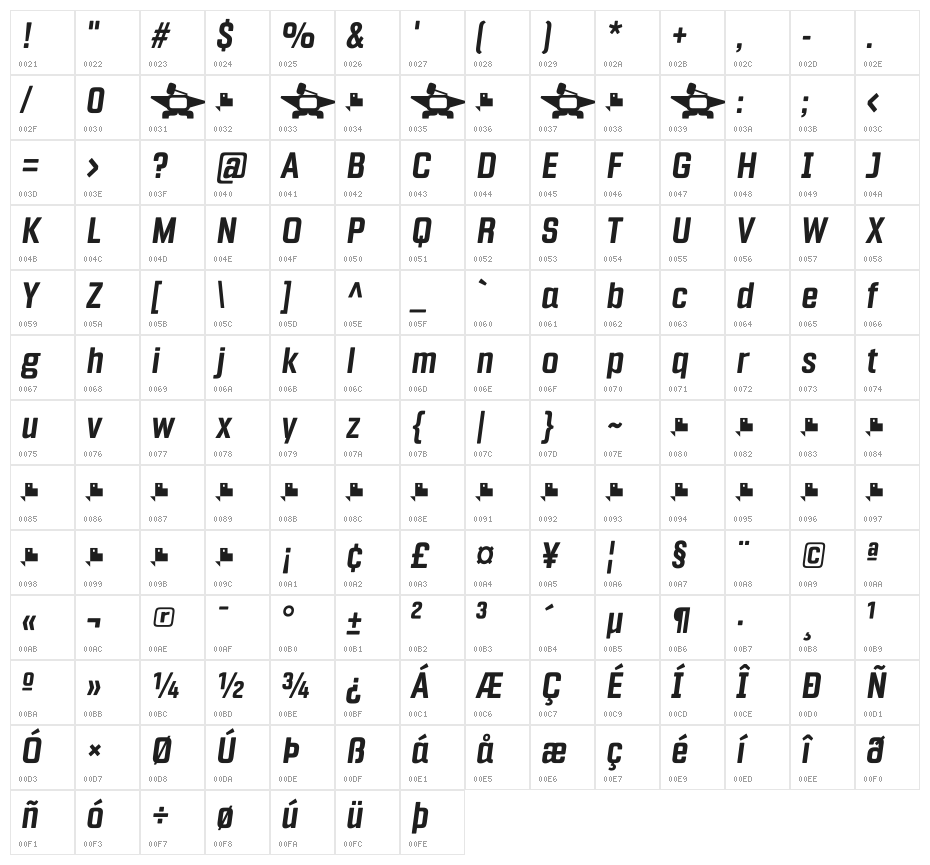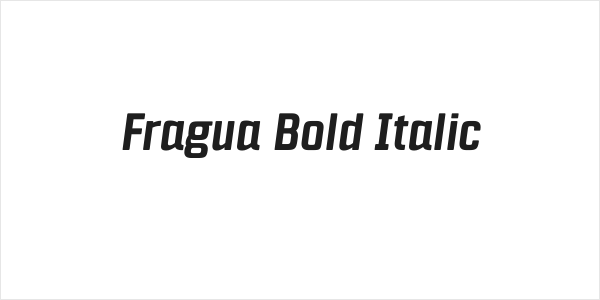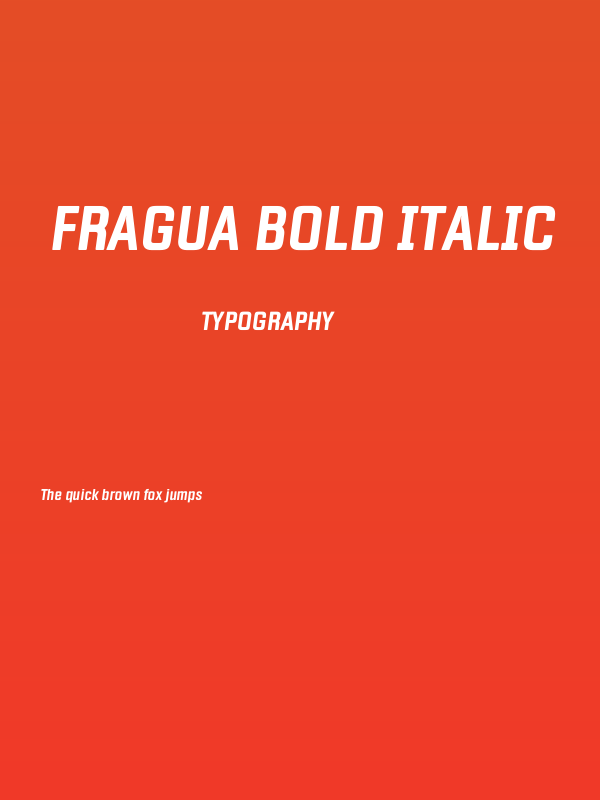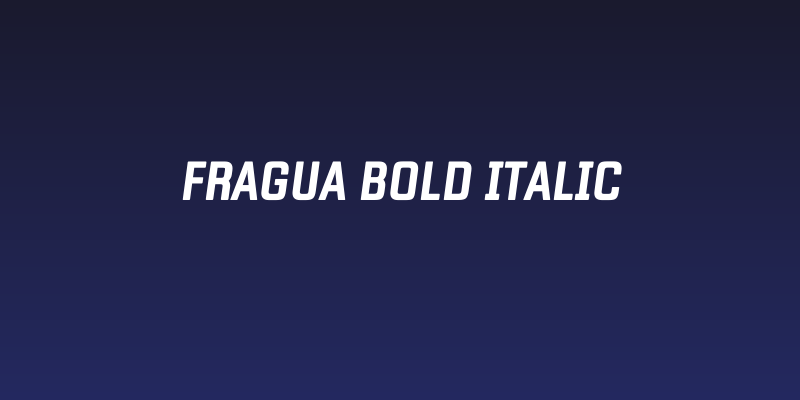
Fragua Bold Italic Font
Fragua Bold Italic Description
This font features a bold and italicized style, characterized by its strong, angular lines and dynamic slant. The uppercase letters are robust and commanding, while the lowercase letters maintain a consistent flow with a slightly condensed appearance. The numerals are distinct and align well with the overall bold aesthetic. Special characters are designed with clarity and precision, making them easily distinguishable. This font's boldness and italicization give it a sense of urgency and modernity, suitable for impactful design applications.